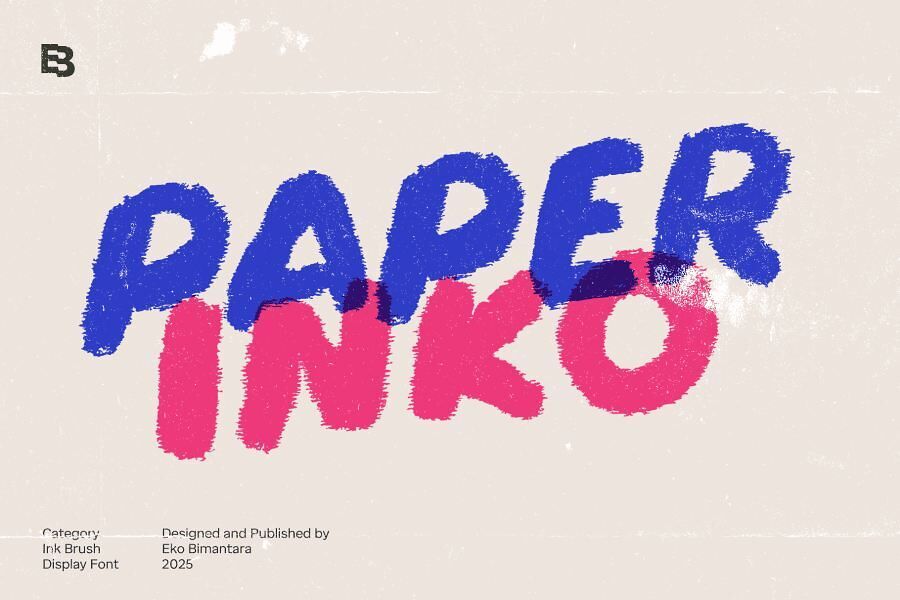
Paper Inko Font
Paper Inko is a bold, hand-crafted display typeface by Eko Bimantara, perfect for striking headlines, titles, logos, and brand identities. Inspired by textured ink on rough paper, its irregular edges and organic feel evoke a gritty, artistic charm.
Designed by: Eko Bimantara